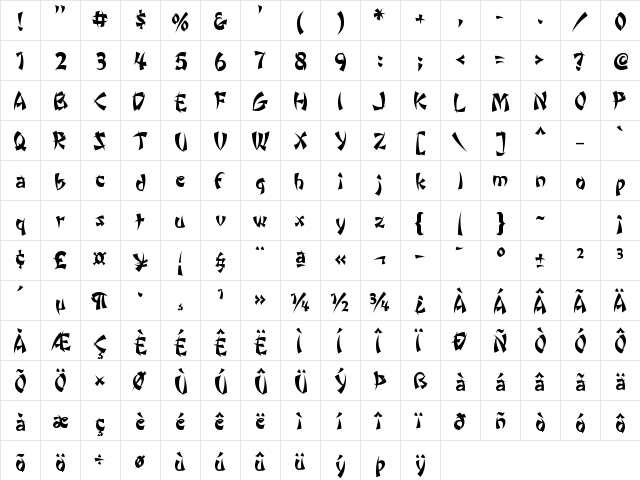
Wonton by Da Font Mafia
Design Context for Wonton Typeface
Wonton is a composed and adaptable typeface that performs quietly and consistently across a wide range of design contexts.